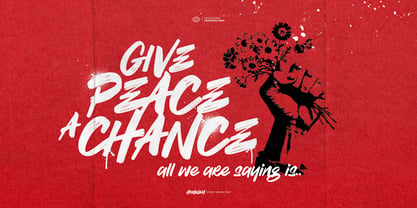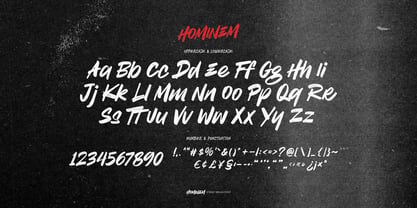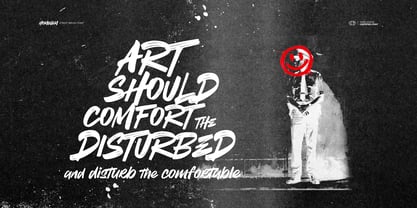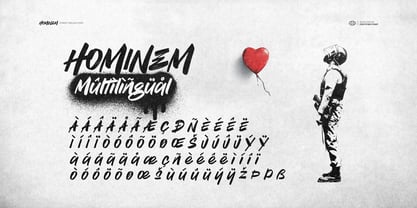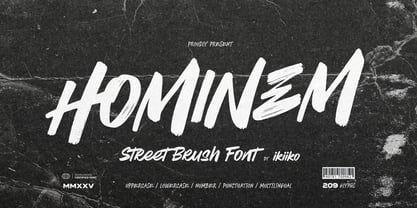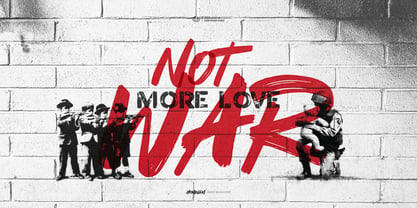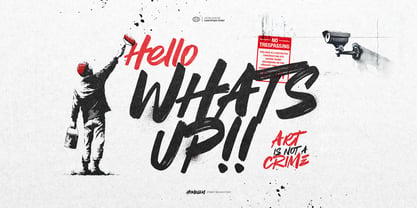
Hominem
by IKIIKOWRK
The Hominem Font Family was designed by Andhika Pradana and published by IKIIKOWRK. Hominem contains 1 styles. More about this family
Proudly Present Hominem - Street Brush Font, created by ikiiko Hominem is a bold street brush font inspired by the raw energy of urban culture, the chaos of back-alley murals, and the fearless freedom of youth. Each letter is crafted with raw, hand-painted strokes that echo the power and emotion of real street art — messy, loud, and beautifully expressive. This font was made for the rebels, the creators, and the dreamers who see the city as their canvas and typography as their voice. Every curve and brush texture captures the pulse of movement. It radiates energy, attitude, and individuality, bringing a sense of authenticity to every word it shapes. Hominem turns your message into a visual statement — raw, emotional, and full of life. Perfect for designers who crave freedom in expression. t’s a rebel typeface that celebrates imperfection and human touch — a reflection of real art made by real hands. Use it to inject your designs with bold street personality, expressive movement, and youthful energy that refuses to be tamed. This font is ideal for streetwear brands, graffiti posters, covers, event flyers, youth campaigns, modern branding, and any creative project that thrives on the rhythm of the streets. What's Included? :: Uppercase & Lowercase :: Numbers & Punctuation :: Multilingual Support :: Works on PC & Mac Get also a good offer & FREEBIE at our site Enjoy our font and if you have any questions, you can contact us by email
Designers: Andhika Pradana
Foundry: IKIIKOWRK